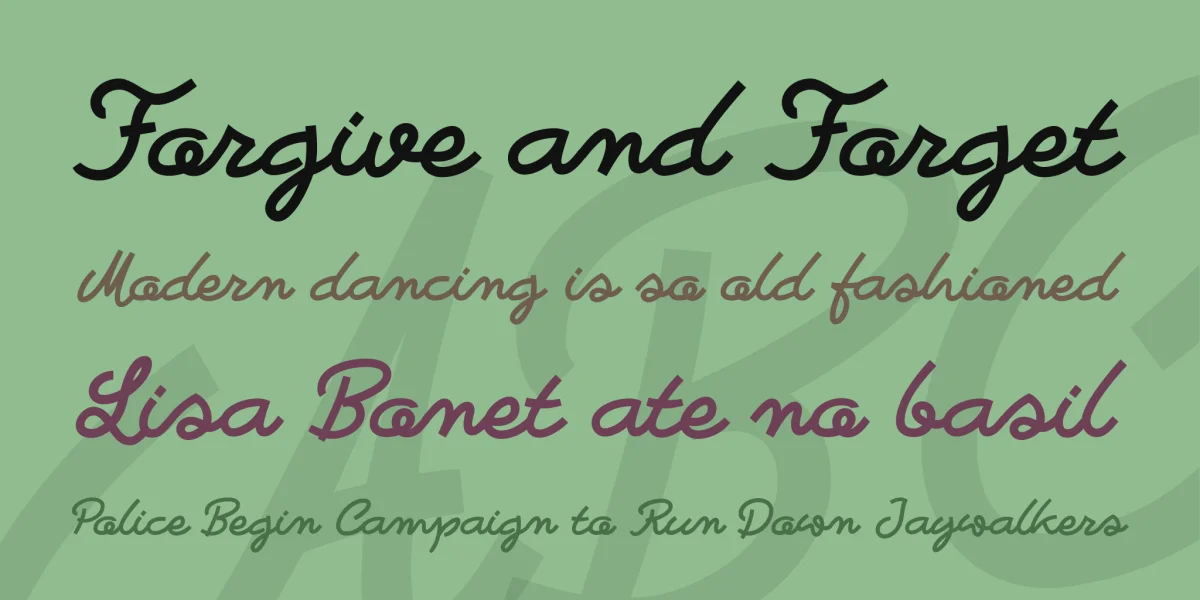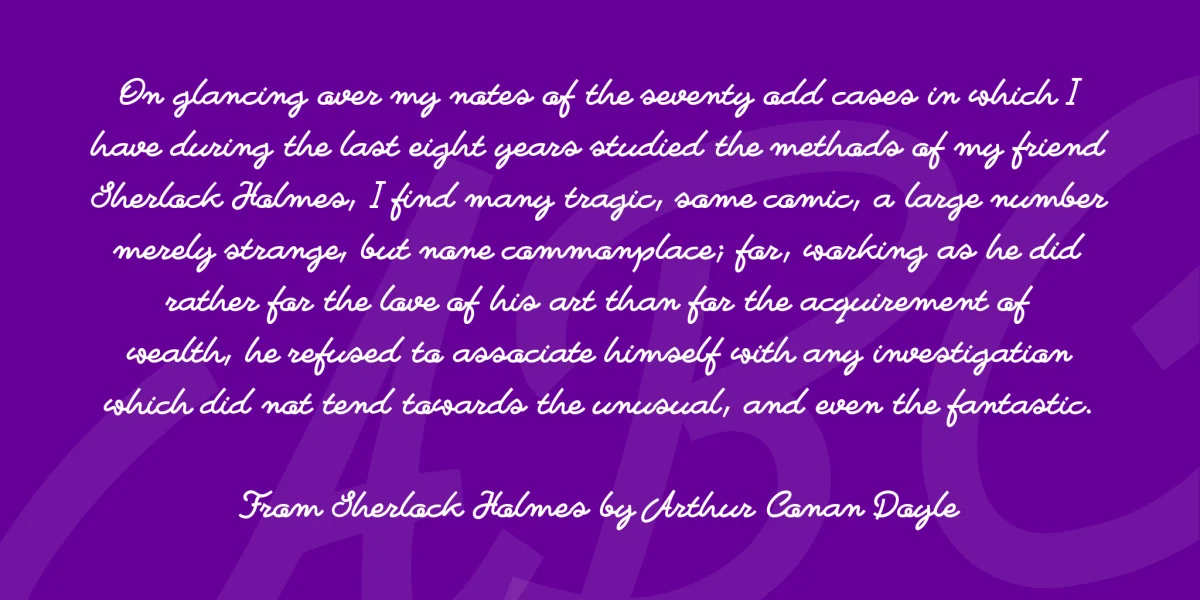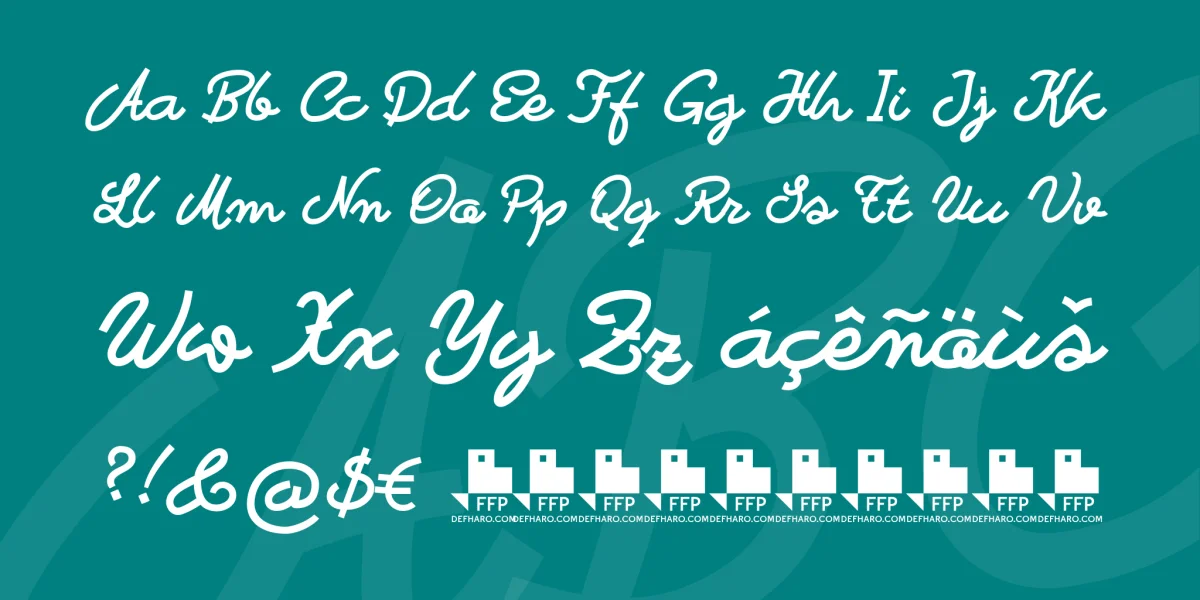
Bastardilla is a concatenated handwritten font. It has 2 complete sets of Capital letters and 3 sets of lowercase letters, including one for terminals letters (swashes) and one for initial letters.
The font also has a set of 8 ornaments for decorating phrases. Bastardilla has several ornaments, use the following keys: